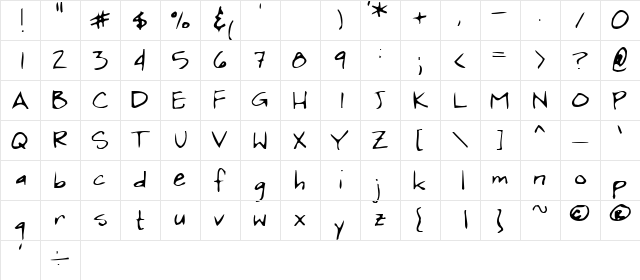
PenPalOne3 Regular
Design Context for PenPalOne3 Typeface
PenPalOne3 is a composed and adaptable typeface that performs quietly and consistently across a wide range of design contexts.